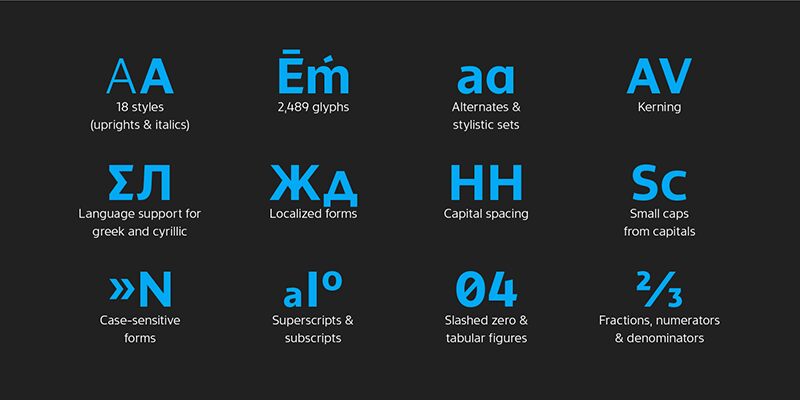
Evander is a humanist sans serif font family designed by Mihai Sorin and released by Punchform in 2020. The complete family consists of 18 styles 9 roman weights and their matching italic weights. You can buy the full family at
Evander's design is neutral, clean, and modern, making it a perfect selection for a wide variety of creative graphic design projects:
Logo design & corporate branding
Display, advertising, signage & poster design
Packaging
Print, publishing & editorial
Book & magazine layout
Web sites & mobile apps
The extensive range of styles offers maximum versatility and allows you to create dynamic designs. The Thin and Light weights are delicate and soft, excellently suited for short elegant, fashionable texts.
The Regular through Bold weights are the workhorse of the typeface. They are highly legible in small text sizes, and due to their neutral and simple design, they work perfectly in almost every possible medium from formal corporate documents to newspaper columns and websites.
The Extra Bold and Black weights were designed for things that must stand out. Their heavy letterforms can create a massive headline, a dominant title, or a powerful logo.
Each weight contains 2,489 glyphs and includes strong OpenType features:
Stylistic Alternates & Sets
Kerning
Small Caps
Standard Ligatures
Case-Sensitive Forms
Capital Spacing
Subscripts & Superscripts
Scientific Inferiors
Proportional Figures
Tabular Figures
Slashed Zero
Fractions
Numerators & Denominators
Ordinals
Localized Forms
Glyph Composition / Decomposition
Evander was built on a minimal geometric skeleton. Then the shape of each letter, number, and glyph was slightly adjusted to give it a friendly and organic look. This created a more natural rhythm while keeping most of the mechanical forms of modern sans-serif typefaces.
Evander is a multilingual font and offers pro extended character sets for Latin, Greek, and Cyrillic scripts.
Evander ExtraBold